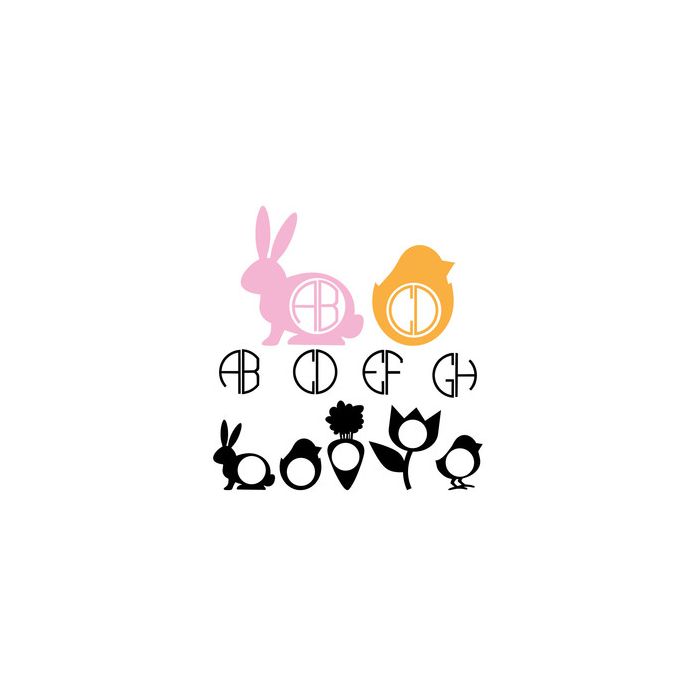
This is a monogram font. It is not intended to use for "typing", rather, you simply use the uppercase for the left side of the monogram and the lowercase for the right side of the monogram. There are several additional Easter shapes found in the numbers. Use them to top off your monogram by placing around your monogram letters. For more fun fonts please visit: /lettering/fonts-c1c3